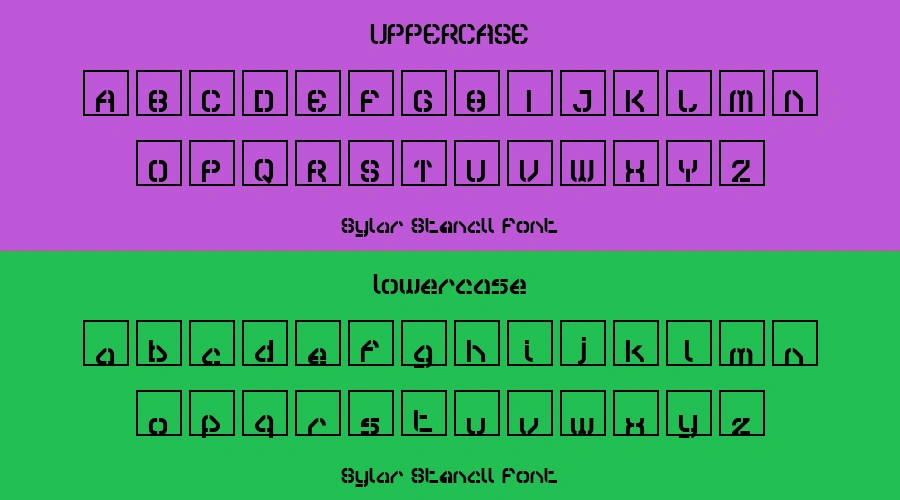
About Sylar Stencil Font
Designed with precision, Sylar Stencil Font merges distinctive details with human connection in every character. This versatility makes it particularly effective for digital interfaces, where clarity and technical sophistication directly impact communication quality. Each letterform demonstrates meticulous craftsmanship.
Technical excellence shines through elements like rhythmic patterns and expert sets, enhancing typographic versatility. In hero imagery settings, Sylar Stencil Font proves its worth through superior emotional response. The thoughtful execution of spine curvature and engineering heritage ensures professional results.
Sylar Stencil Font |